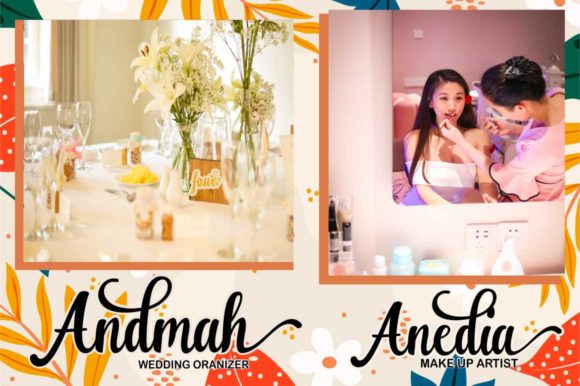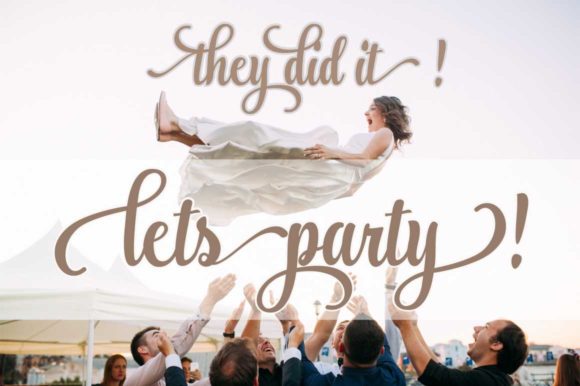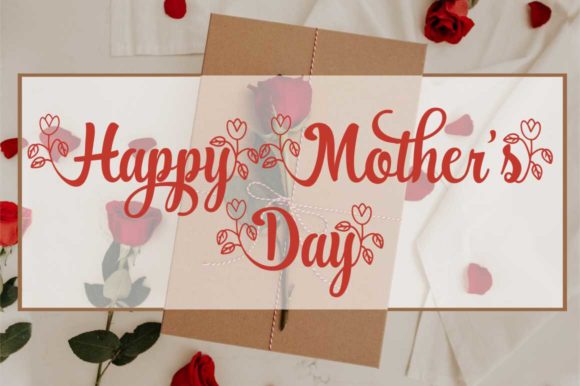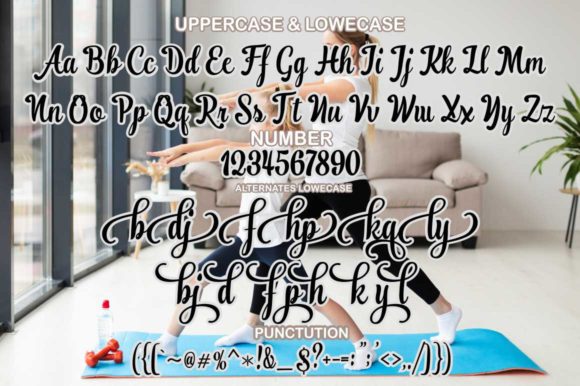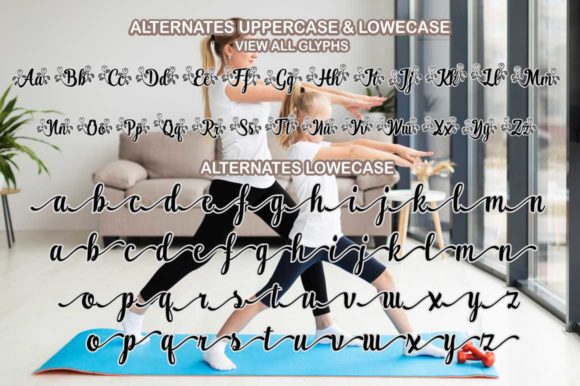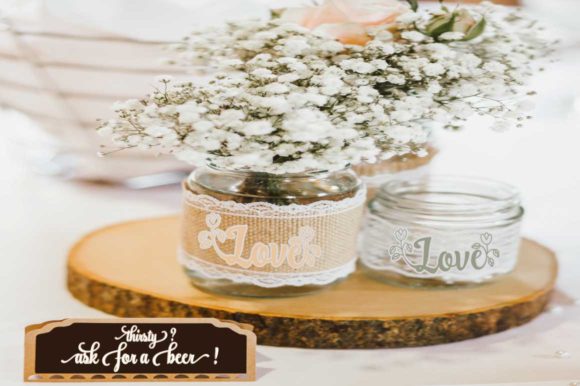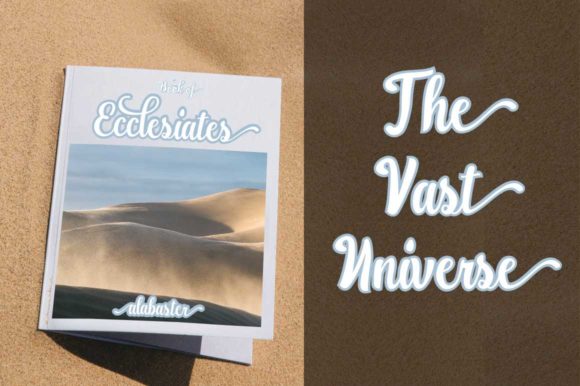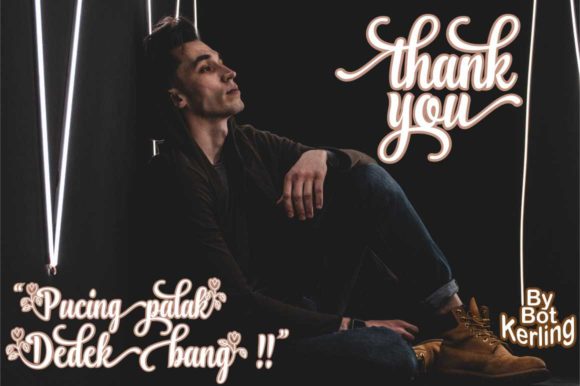
Ranykinaya Font
About Ranykinaya Font
Ranykinaya is inspired by classic typography and brings its own unique style to any design project. This font is the perfect fit for all of your logos, branding, social media, and crafty DIY projects.